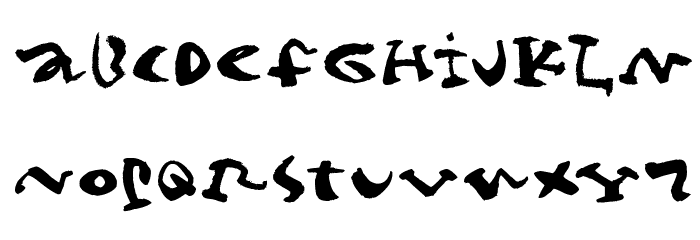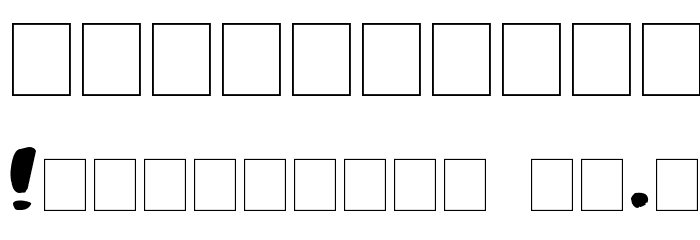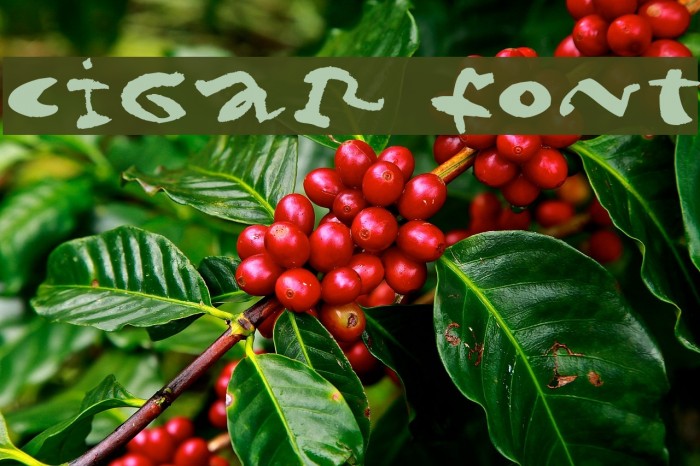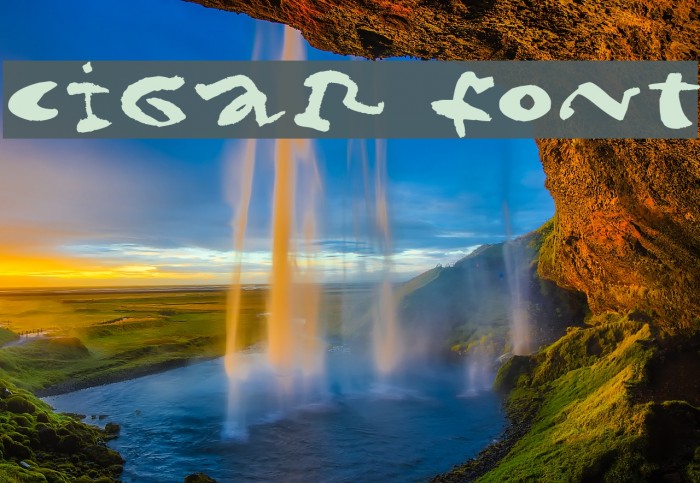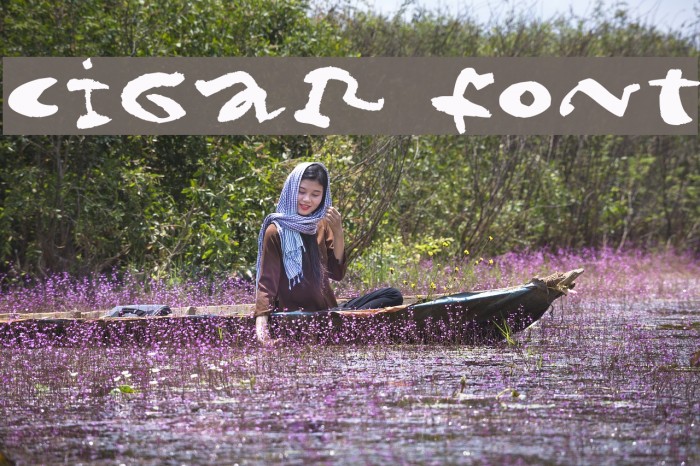
Cigar Font
This font features a bold, expressive style with a hand-drawn appearance. The characters are irregular and dynamic, giving a sense of movement and energy. The strokes are thick and varied, creating a high contrast between the thick and thin parts of the letters. The overall look is artistic and somewhat chaotic, with a unique flair that stands out. The uppercase and lowercase letters maintain a consistent style, while the numbers and special characters complement the alphabet with similar bold strokes and artistic flair.
A bold, hand-drawn font with high contrast and dynamic strokes.
- Proposed Projects: Ideal for creative projects such as posters, album covers, or branding for artistic ventures. It can also be used for headlines or titles that require a strong visual impact.
- Overall Style: Artistic, Expressive
- Use Case: Headlines, Posters, Branding